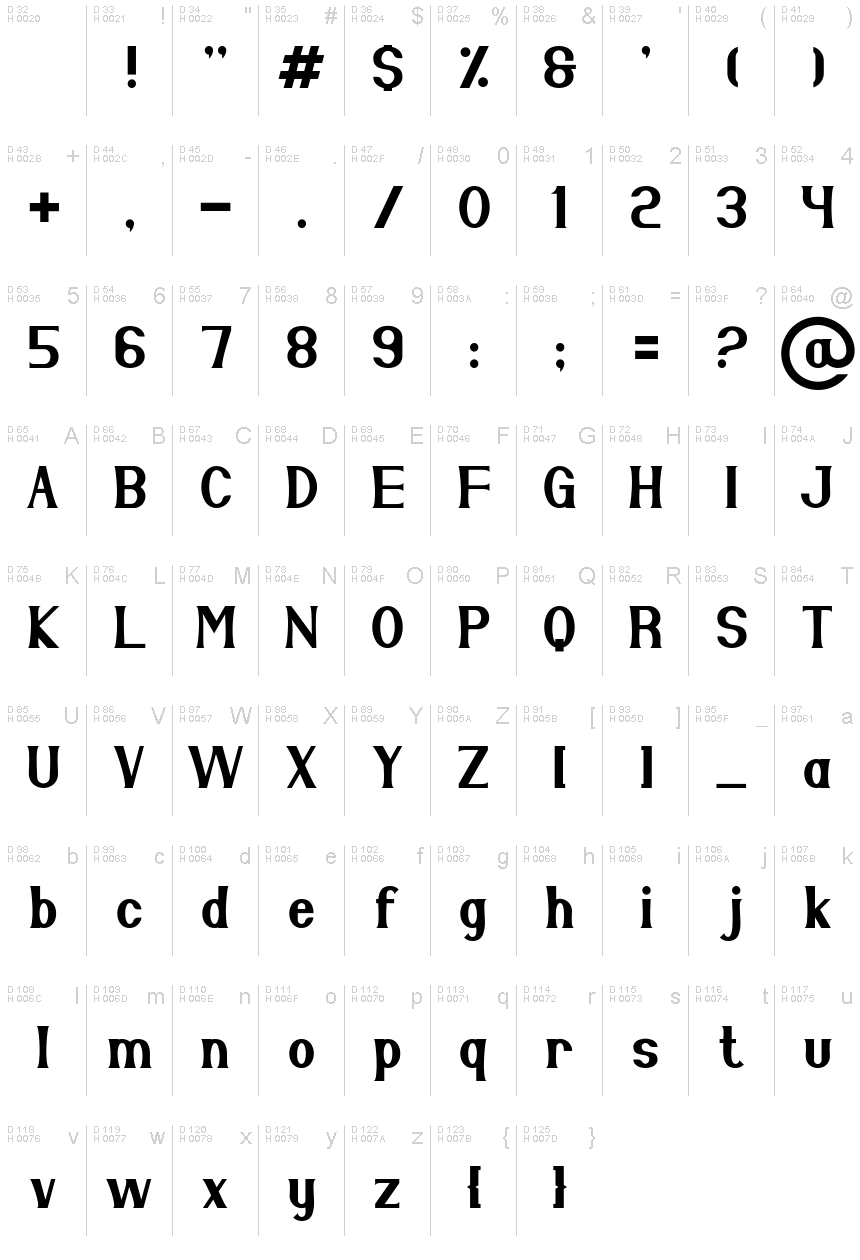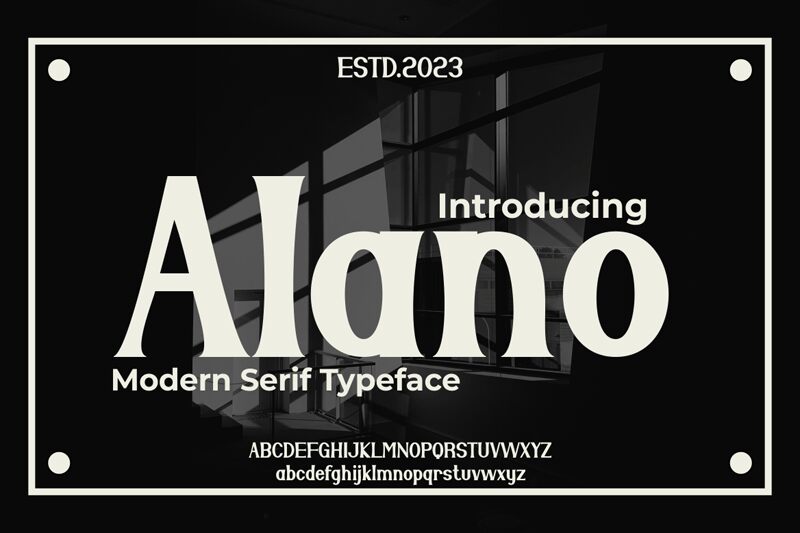
Alano
Alano font designed by Gilang Ternadho, is a bold modern serif font that exudes timeless sophistication and modern elegance, perfect for logos, poster titles, marketing materials, magazine imagery, wedding invitations and unique branding. Alano is PUA encoded which means you can access all glyphs and swashes with ease!
The certain characteristics of covers with luxury brands inspiration come from beautifully balanced Alano. With its high contrast optimized for displays as a captivating title or elegant text.